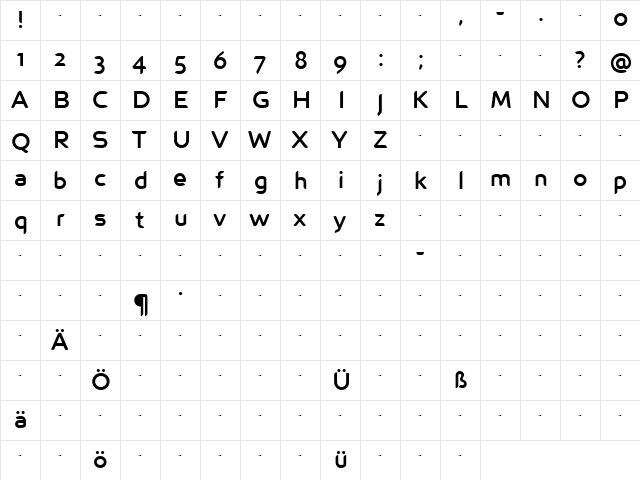
Trivia-Regular Regular
Design Context for Trivia-Regular Typeface
Trivia-Regular takes a measured approach to typography — its balanced proportions and neutral character make it a reliable workhorse for both digital and print work.